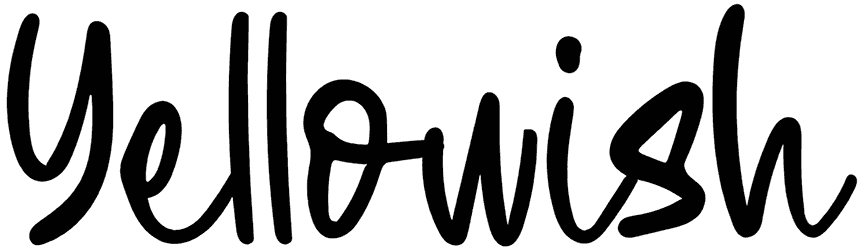
Yellowish Font
If you are in the mood for adding a personalized touch to your artwork, then a magical script font such as Yellowish deserves to be on your radar. This brilliant handwritten font comes with curved and well-rounded characters, thus conveying a sense of professionalism, precision, momentum, or delicacy.
We strongly recommend you pick up this font for your gift cards, birthday invitations, stationery, magazines, or social media posters.